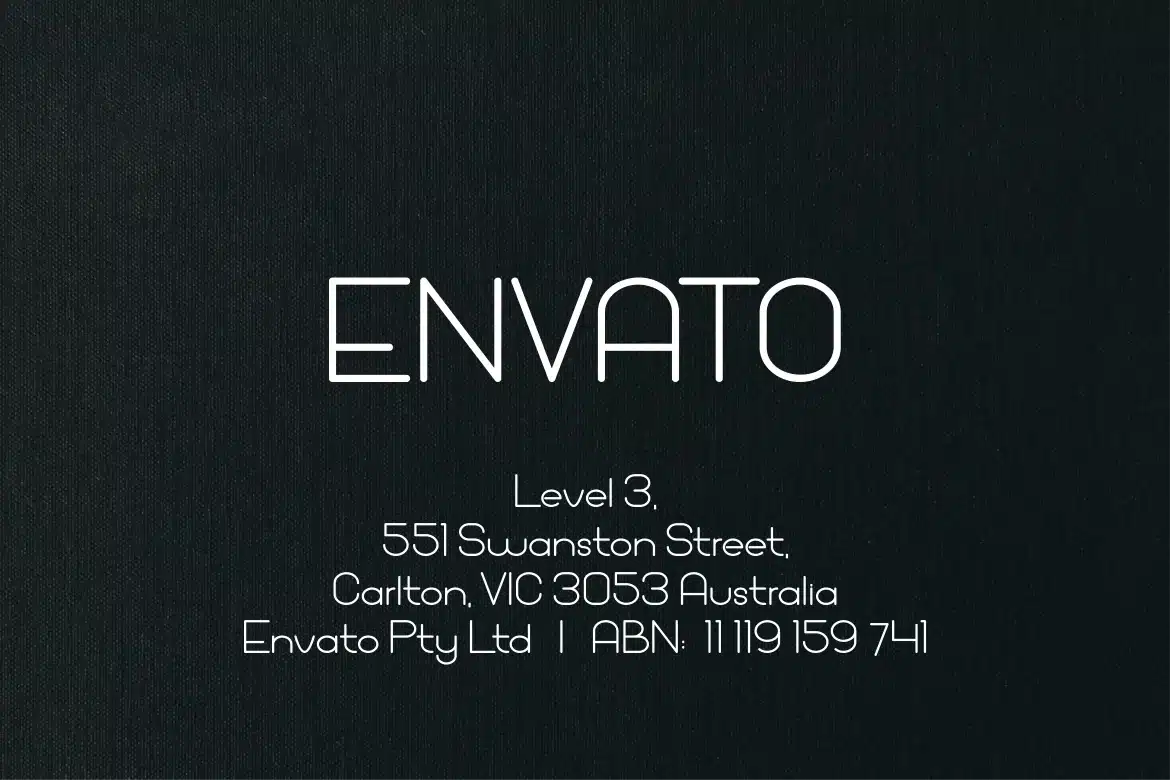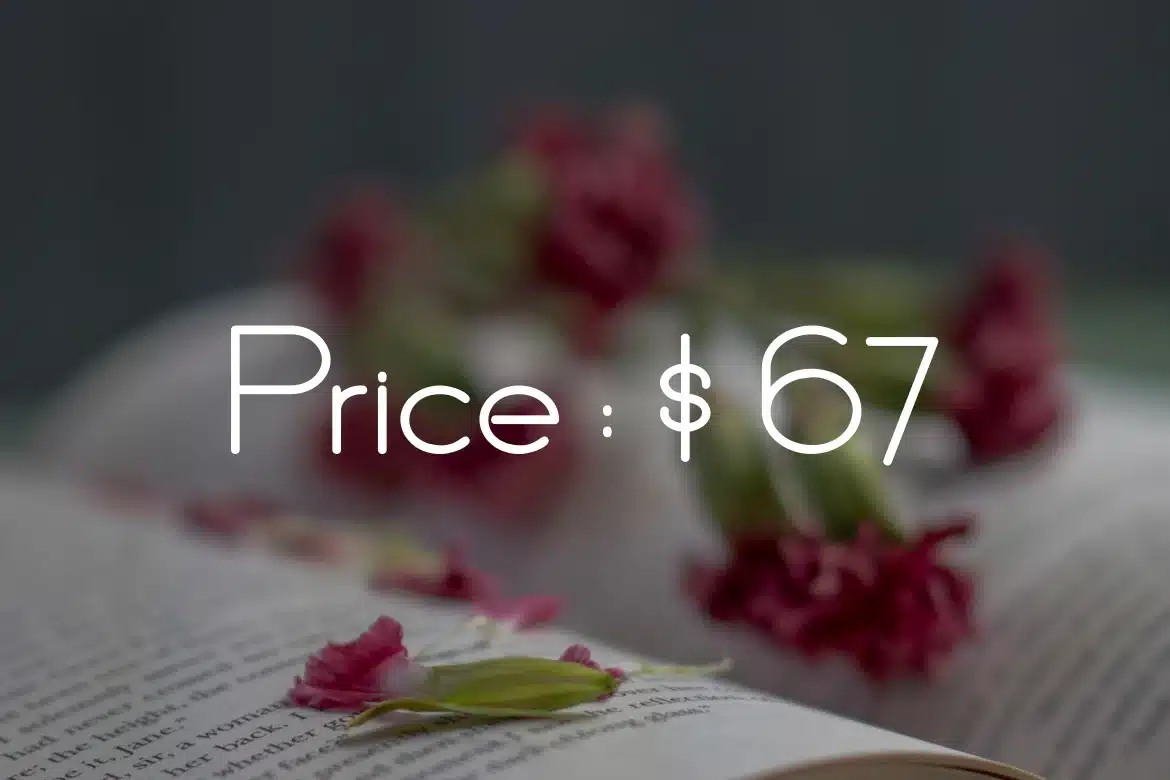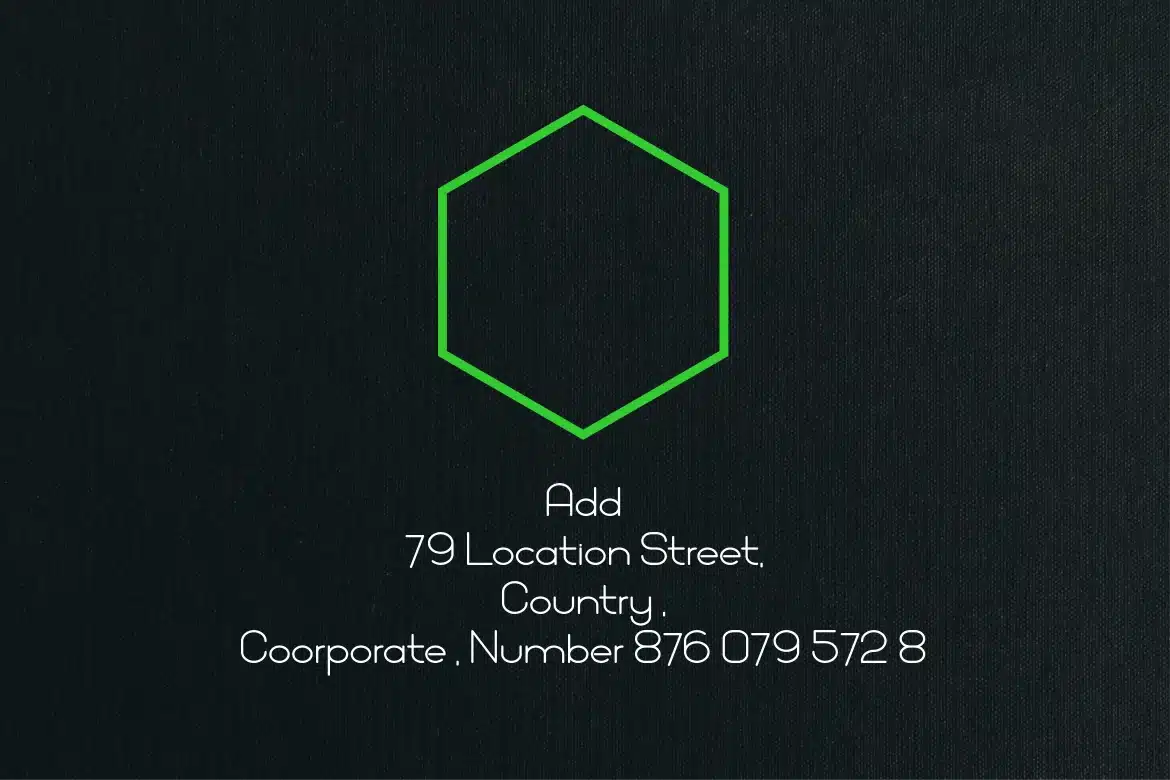
Wandra Monoletter Font
is a simple monoline font.
This font is usually found in writing an address or a description of a job.
also suitable for writing prices, clothing sizes and the like, or accessories.